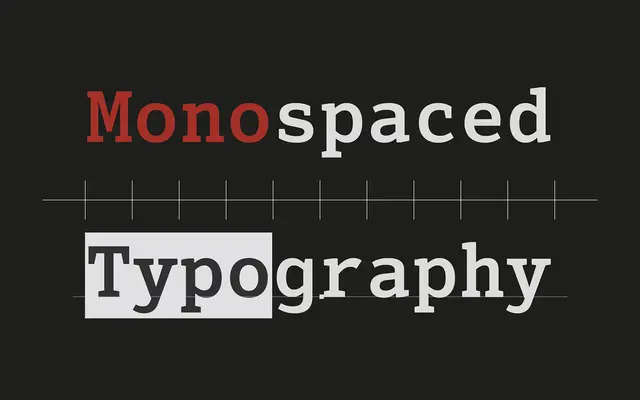
Senpai Coder
A typewriter-inspired monospaced family from Dharma Type built for coding, with serif detailing and a slanted-Roman italic rather than cursive forms.
Designed specifically for development and programming environments, the family addresses common legibility pitfalls by carefully distinguishing zero from uppercase O, one from uppercase I, and two from Z. Italic styles use a pronounced slant at a lighter weight than the uprights for improved contrast, avoiding cursive alternates that can disrupt readability in code editors. Serif detailing throughout gives the family a typewriter character without sacrificing the clarity that long coding sessions demand.
Explicitly designed as a monospaced coding font with serif detailing drawn from typewriter conventions, making it a serifed mono rather than a clean geometric or grotesque mono.